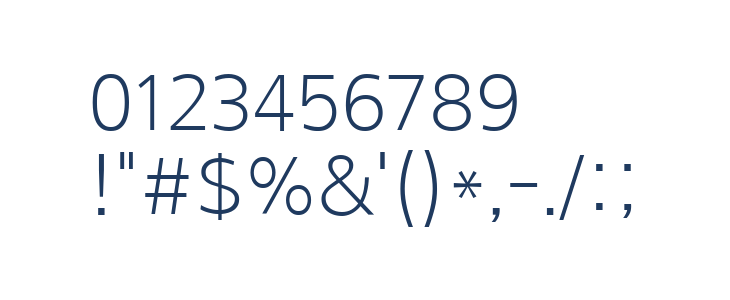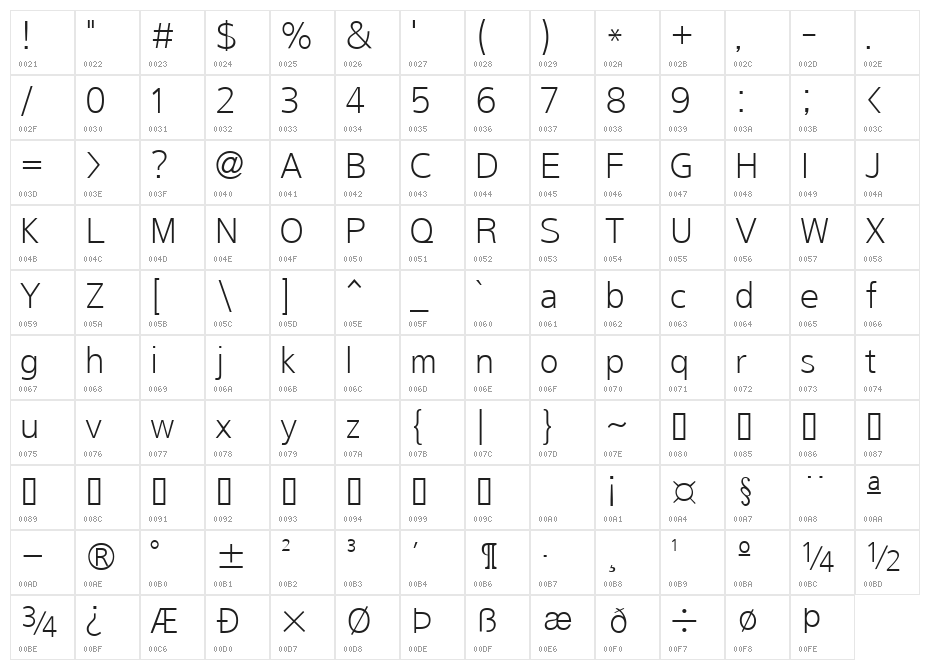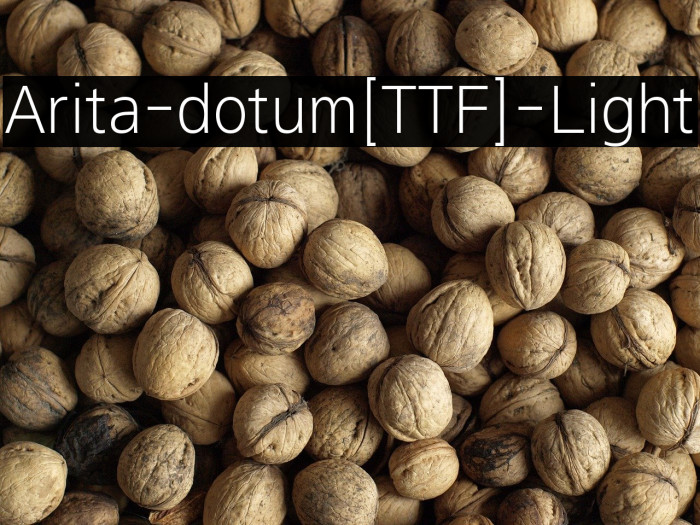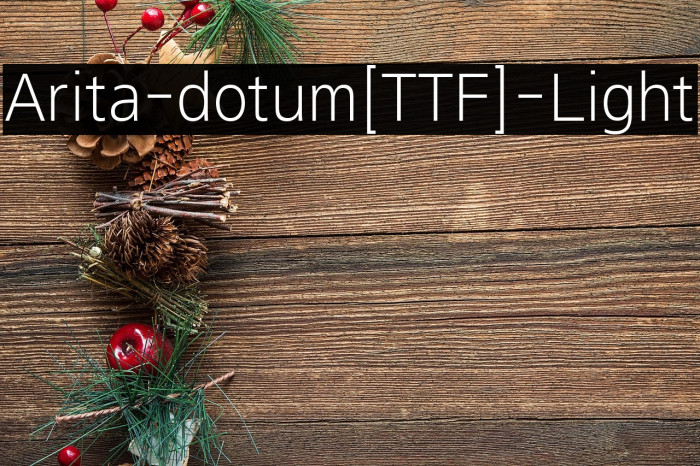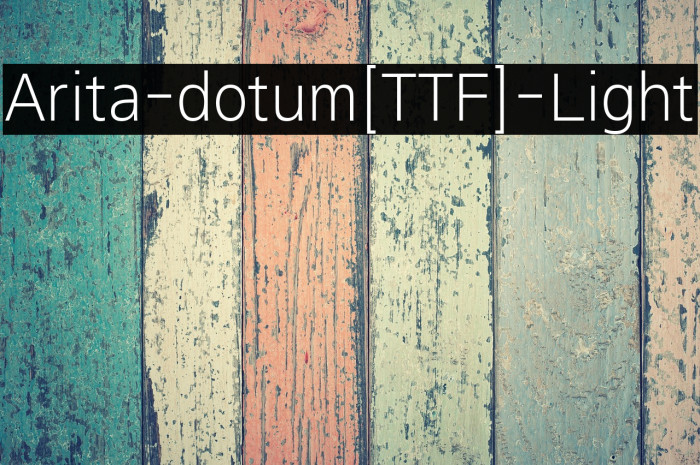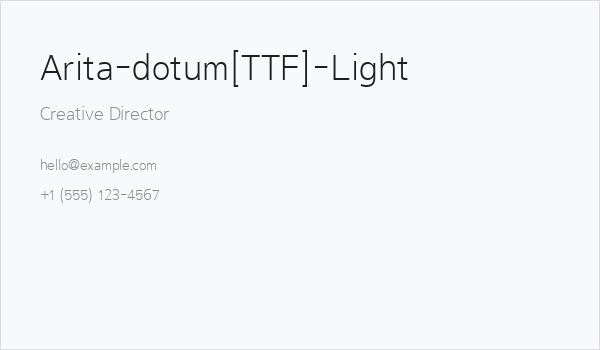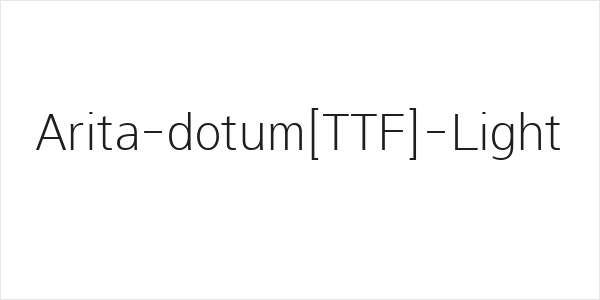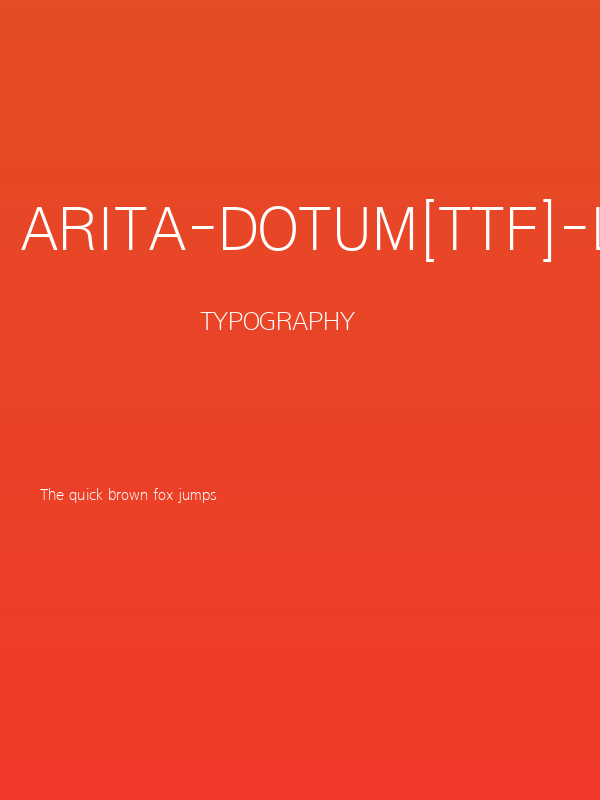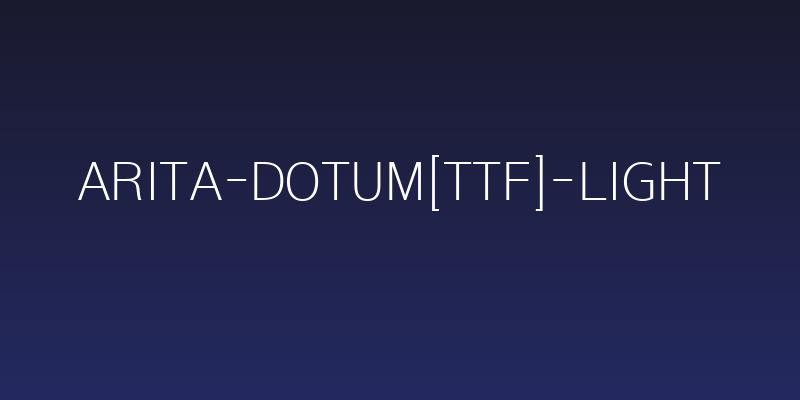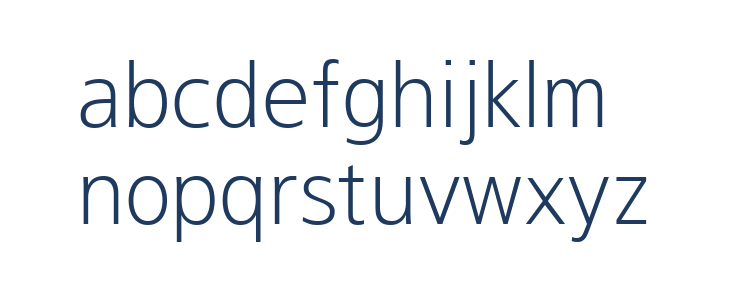
Arita-dotum[TTF]-Light Font
Arita-dotum[TTF]-Light Description
This font features a clean and modern sans-serif design with a light weight, making it highly readable and versatile. The characters are well-proportioned with a consistent stroke width, contributing to its minimalist aesthetic. The uppercase and lowercase letters are balanced, and the numerals are clear and distinct. Special characters are included, maintaining the font's uniform style. Its simplicity and clarity make it suitable for a wide range of applications, from digital interfaces to print media.